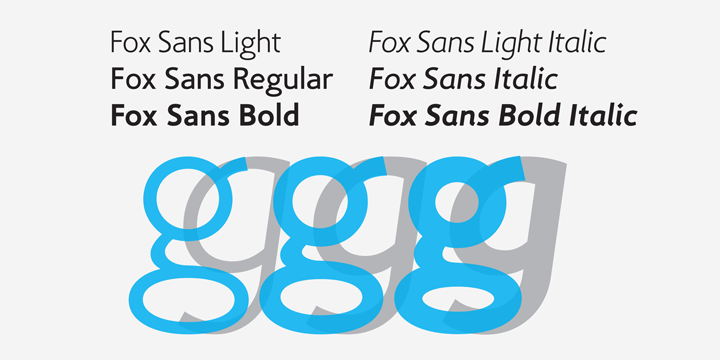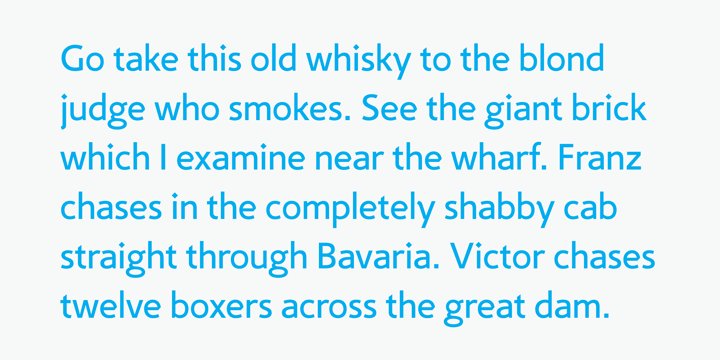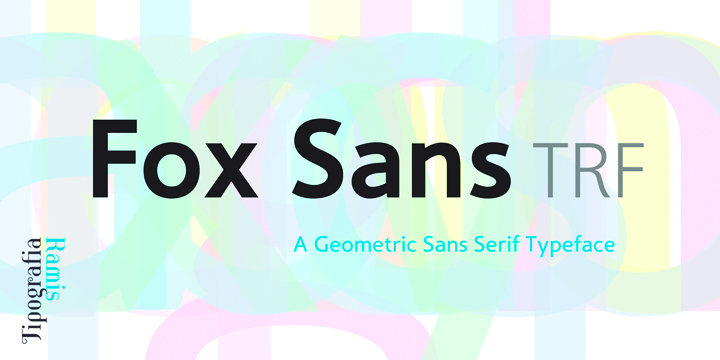
Fox Sans TRF Font Family
Fox is a completely new typeface based on my previously designed Fox family font, which has been in distribution by T26 type foundry since 2001. Old Fox typeface design decisions were reconsidered in a way to improve legibility without sacrificing its originality. This new Fox family consists two subfamilies: Fox TRF and Fox Sans TRF. Fox Sans TRF includes six styles, in roman and italic, respectively. This subfamily’s lowercase letters have a genuine neo-grotesque shape construction without any decorative distractions. Fox typeface is recommended for use as a display font, and has been generated in a single OpenType format with Western CP1252 character set.